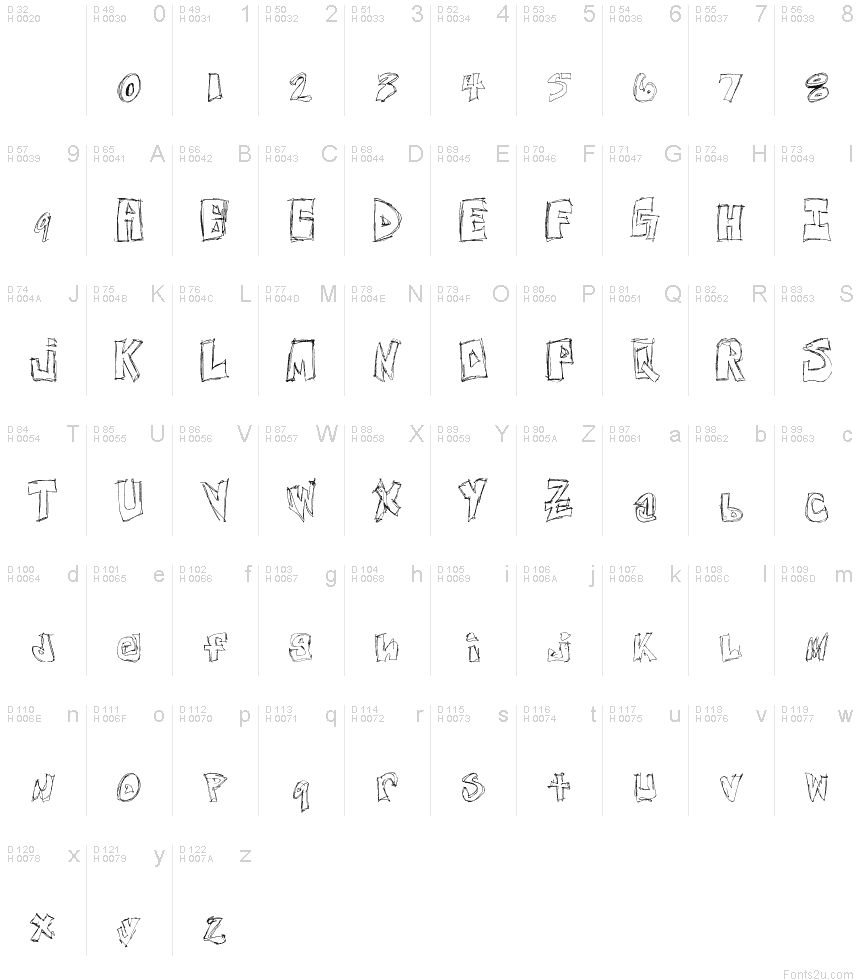
Free Nights and Weekends
Free Nights And Weekends font by Livin It Network is a free grungy hand-drawn display typeface. Its scratchy outlines, overlapping strokes, and restless, scribbled texture feel like they were ripped from the corner of a notebook during a late-night phone call. Big, chunky shapes wobble slightly as if cut from paper, giving every word a raw, DIY energy that jumps off the page.
Using Free Nights And Weekends, your titles instantly feel like underground flyers, zines, skate decks, or chaotic party posters. This free font also works for album art, rebellious brand stickers, streetwear graphics, and edgy social media promos where polish would kill the vibe. Set it large for maximum impact, and pair it with a clean, narrow sans serif for body text to keep the wildness readable.